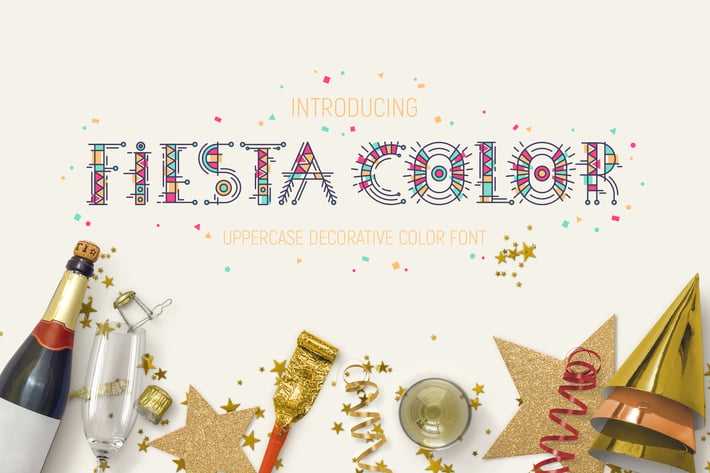
Fiesta Color Font
Fiesta Color Font is a festive decorative color font made with Fontself Maker, the font creation extension for Adobe Illustrator.
It looks great in print design as titles or lettering for postcards, invitations, tote bags. Use it for short phrases or words to get the best result!